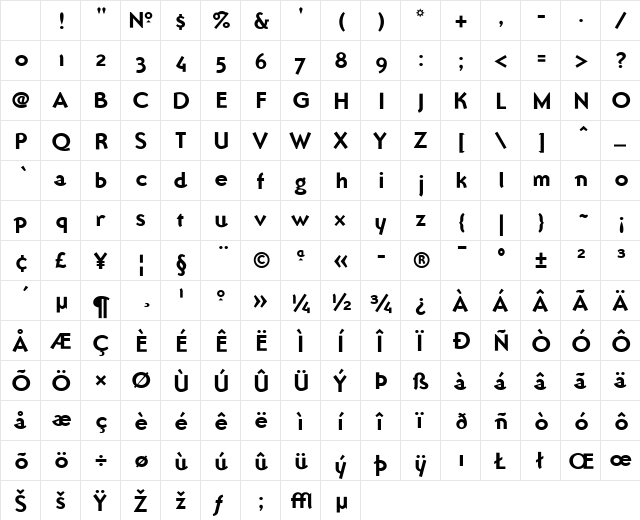
Ottomat is a composed and adaptable typeface that performs quietly and consistently across a wide range of design contexts. Its bold stroke weight gives it real presence on the page.